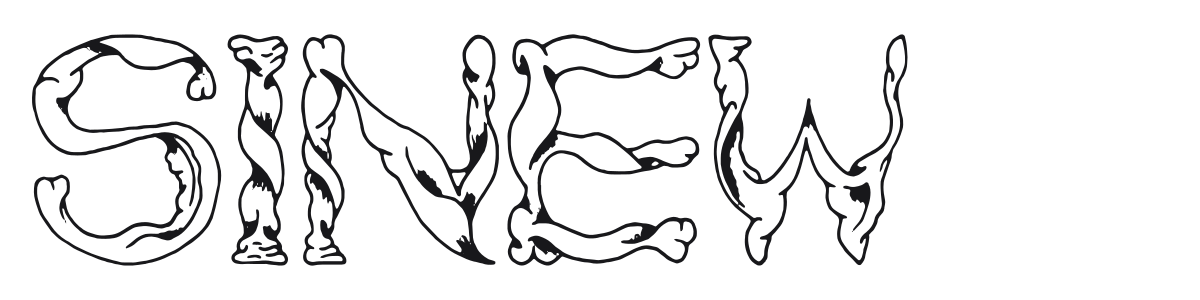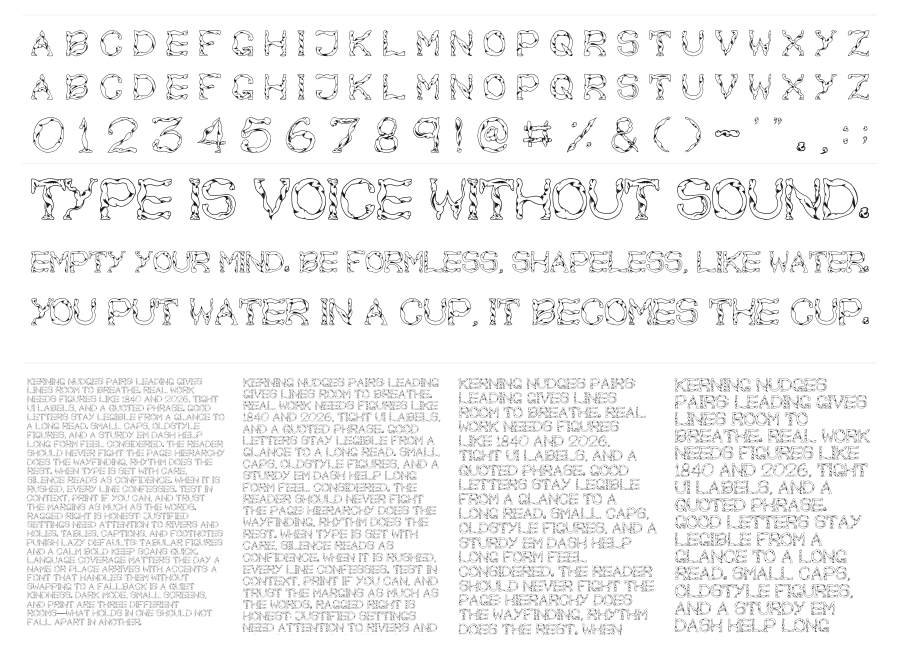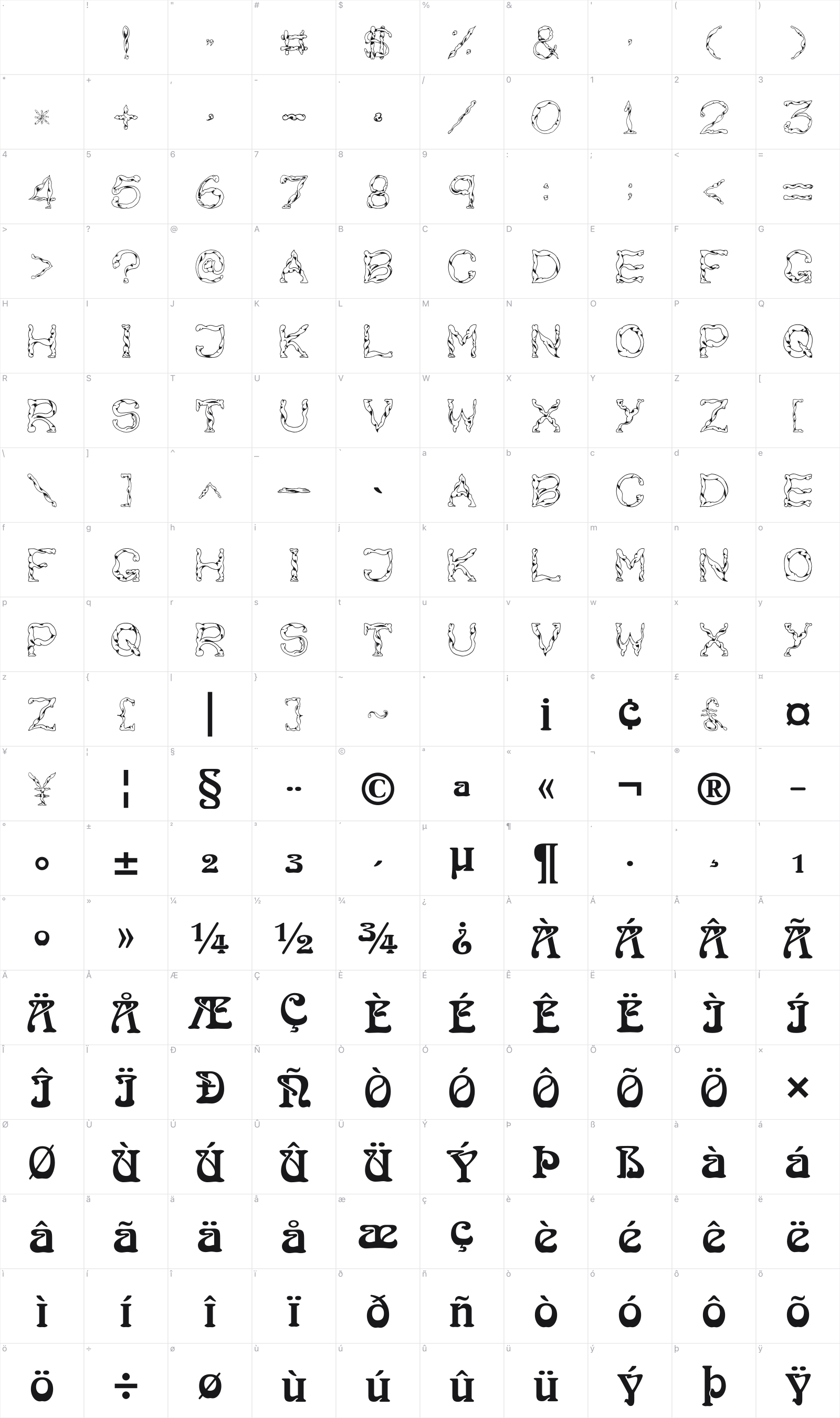
Sinew
Sinew is a display font where each character is built from intertwining, tendon-like strands that loop and knot into recognizable letterforms. Designed by Alistair Quietsch and digitally refined by Lewis MacDonald, it sits at the intersection of illustration and type. The hand-drawn origin is unmistakable, giving it an organic rawness that works at large sizes for posters, album art, or any project that needs something genuinely strange.